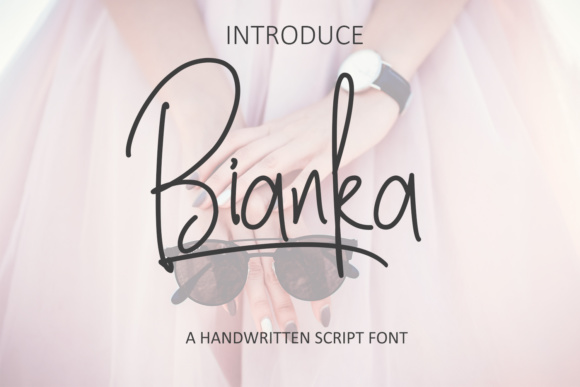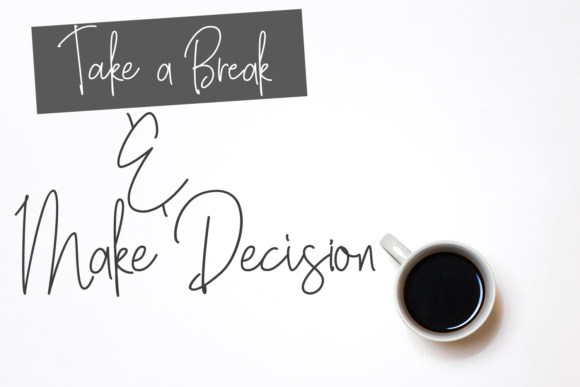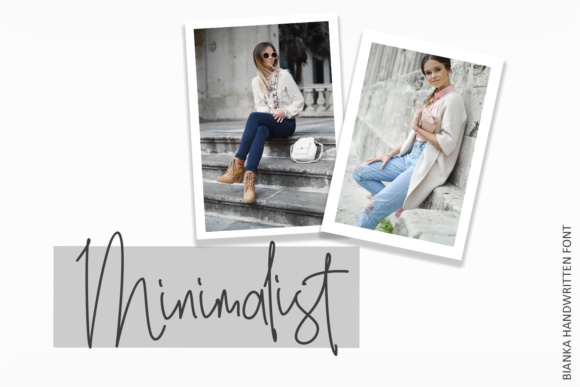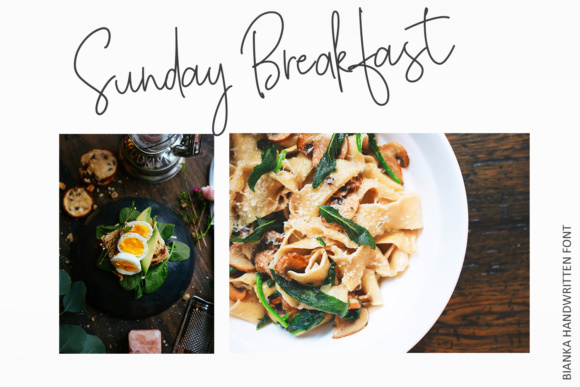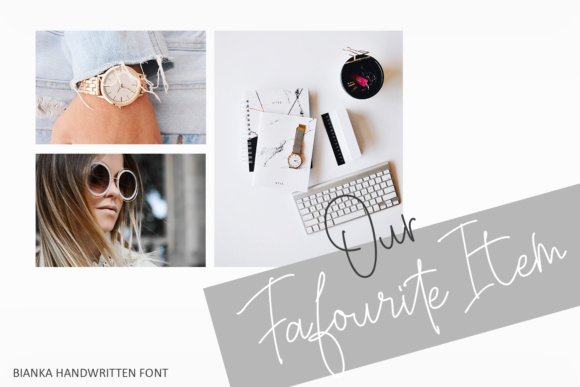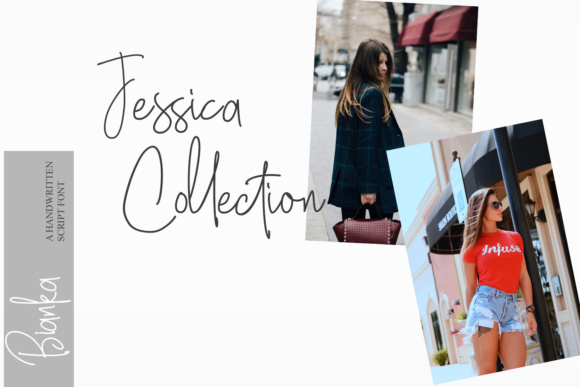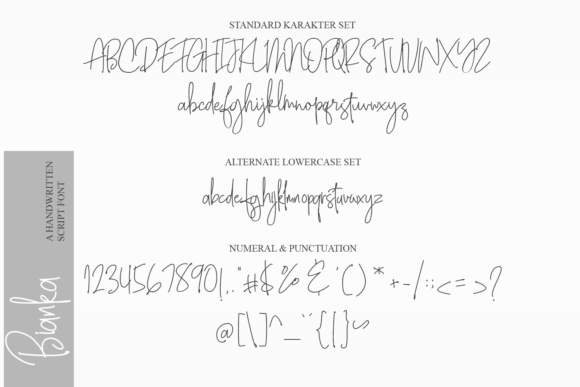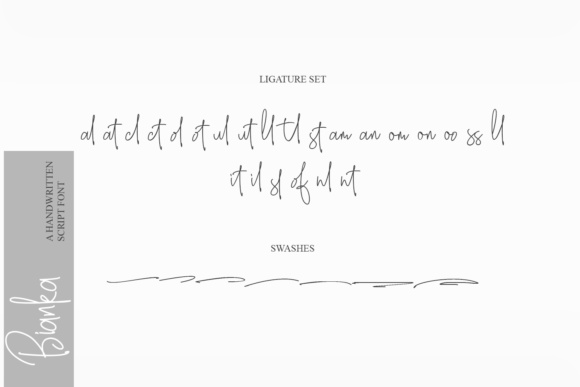
Bianka is a stunning monoline font, ideal for use in fashion and other stylish industries. This simple, handwritten cursive font will add tons of style and elegance to your projects.